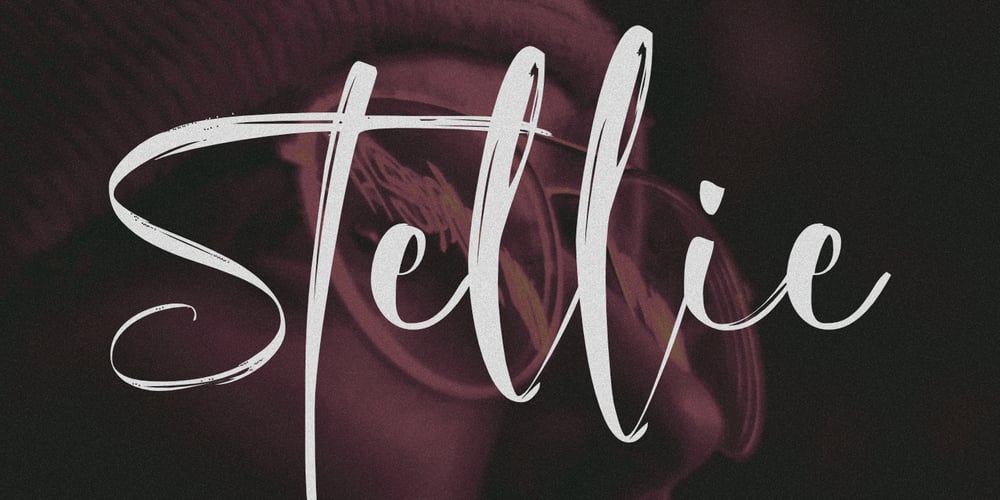
Stellie
Stellie font
Stellie Font Family was designed by Nurul Hidayani and published by Olivetype. Stellie contains 1 styles and family package options. Stellie is a stylish script font with unique textures. Embrace this eye-catching script font to create something truly unique. With its versatility, you can use it on anything from logos, web design, and social media posts to branding material and more. Give your designs the wow factor with Stellie Script Font!